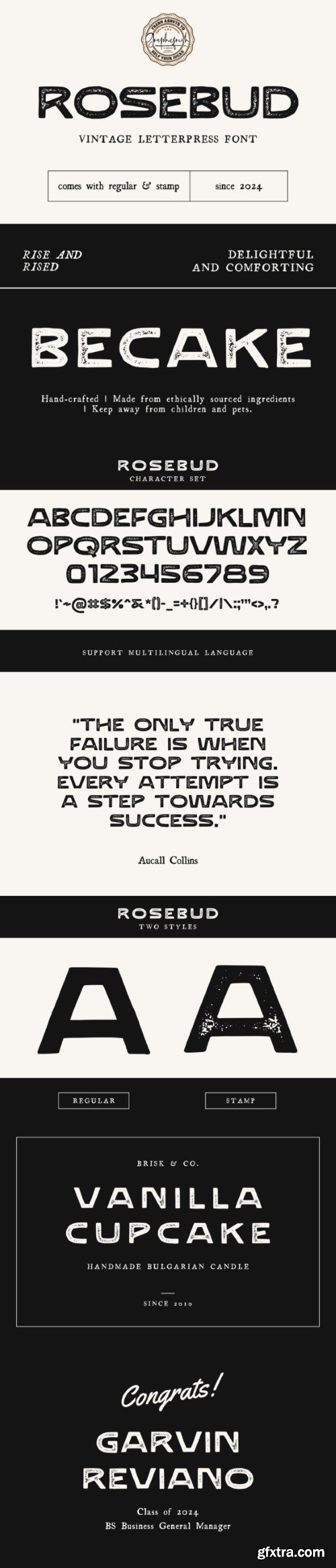
玫瑰屋字体
Rosebud, a vintage and textured display font, evokes nostalgia with its timeless charm. Each character exudes character and warmth, adorned with subtle textures that capture the essence of yesteryears. Ideal for adding a touch of retro elegance, Rosebud infuses your designs with a classic, weathered allure.